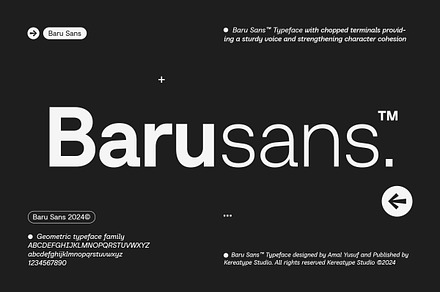
Baru Sans Geometric Font Family
A geometric sans family built on circle and square construction, supplied across a full working weight range.
Geometric families need more optical adjustment than any other kind, since true circles and squares do not appear even to the eye at text sizes.
- Full weight range with italics
- Optical corrections throughout
Where it works
- Modern brand systems
- Interface and product design
- Editorial and marketing
- Signage and print